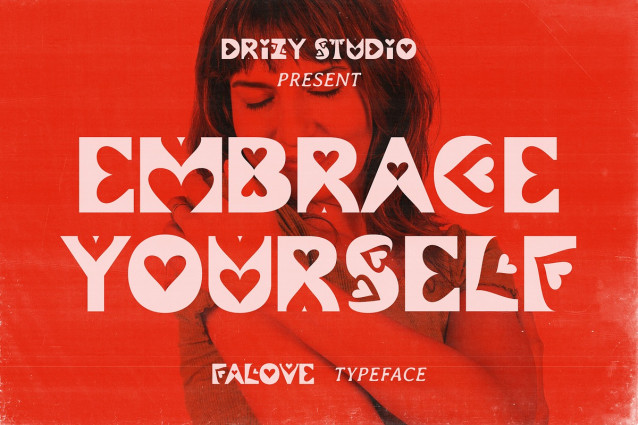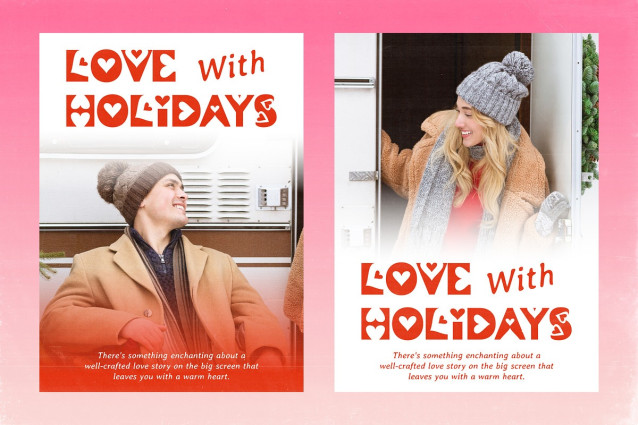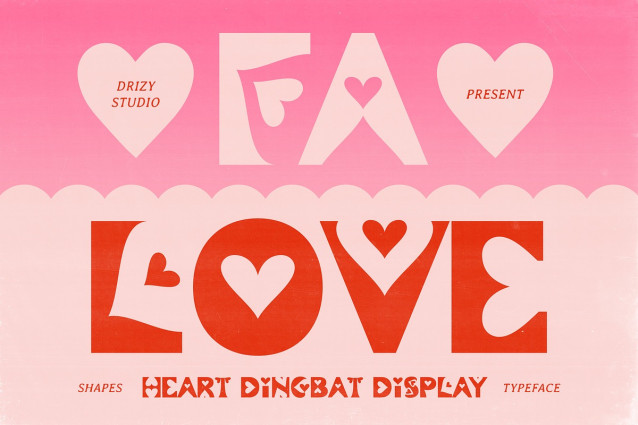
Falove Font
Falove Font Immerse your designs in the tender and sweet vibes reminiscent of your favorite Valentine’s Day movies. This charming typeface is a visual symphony of love, adorned with heart-shaped glyphs that evoke the warm, fuzzy feelings of a romance.